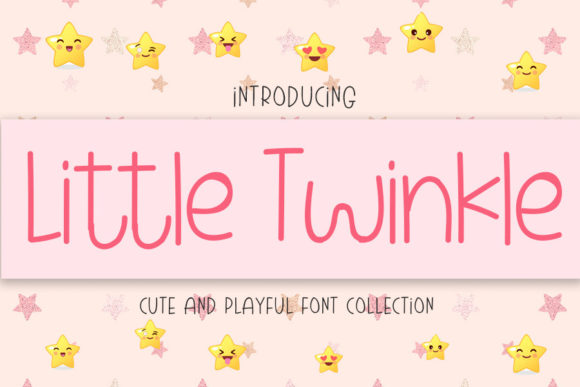
Unleash the Magic of Halloween with Little Twinkle Font: A Bewitching Script for Spooky Designs
In the realm of Halloween fonts, Little Twinkle emerges as a mesmerizing script, casting a spellbinding charm over your designs. This enchanting font, meticulously crafted by the talented shiddiq.art, captures the essence of the season with its authentic and captivating style.
As a handwritten font, Little Twinkle possesses an inherent organic quality that breathes life into your chalkboard quotes and teaching materials. Its flowing strokes and playful curves evoke a sense of nostalgia, conjuring memories of childhood wonder and the excitement of trick-or-treating adventures.
With Little Twinkle, you have the power to transform ordinary words into magical incantations. Its captivating glyphs, reminiscent of whispered secrets and spooky tales, add an eerie elegance to invitations, posters, and social media graphics. Whether you're conjuring a haunted house flyer or designing a spellbinding Halloween greeting card, Little Twinkle provides the perfect canvas for your creative sorcery.
Embrace the Allure of Darkness and Whimsy with Little Twinkle
Little Twinkle's versatility extends beyond the realm of Halloween aesthetics. Its bewitching charm lends itself effortlessly to a myriad of projects, from whimsical party invitations to enchanting logos. Its ability to evoke both a sense of darkness and whimsy makes it an ideal choice for branding, product packaging, and social media campaigns.
Imagine the allure of a fashion brand logo adorned with Little Twinkle's enchanting glyphs, captivating customers with its mysterious allure. Or envision the magic of a children's book cover brought to life by Little Twinkle's playful and enchanting characters. With this font, your designs transcend the ordinary, becoming vessels of storytelling and imagination.
Craft Enchanting Spells with Little Twinkle: A Font for All Occasions
As a Halloween font, Little Twinkle reigns supreme, but its versatility extends far beyond the realm of spooky festivities. Its timeless charm and captivating style make it a versatile asset for any creative endeavor.
Whether you're a seasoned designer seeking a touch of magic for your next project or a novice just starting your design journey, Little Twinkle is your trusted companion. Its user-friendly nature ensures a seamless experience, allowing you to weave your creative spells with ease.
With Little Twinkle, you hold the key to unlocking a world of design possibilities. Its enchanting script adds a touch of magic to any project, casting a spellbinding charm that captivates audiences and leaves them under your creative enchantment.